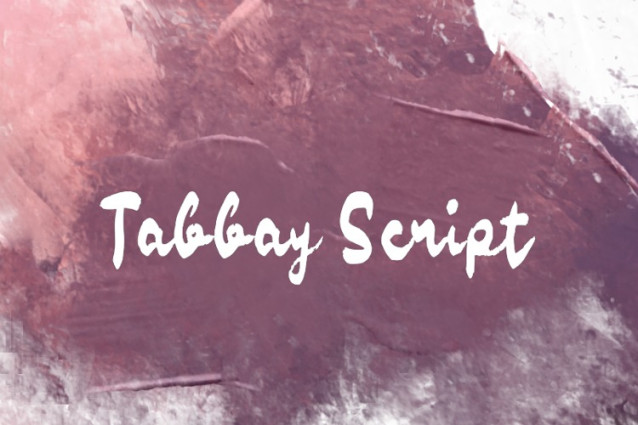
Tabbay Font
Tabbay Font is a brush handwritten font, suitable for any projects like logos, branding projects, homeware designs, product packaging, mugs, quotes, posters, shopping bags, t-shirts, book covers, business cards, invitations, greeting cards, labels, photography, watermarks, special events and all your other luxury projects that need a premium signature feel.